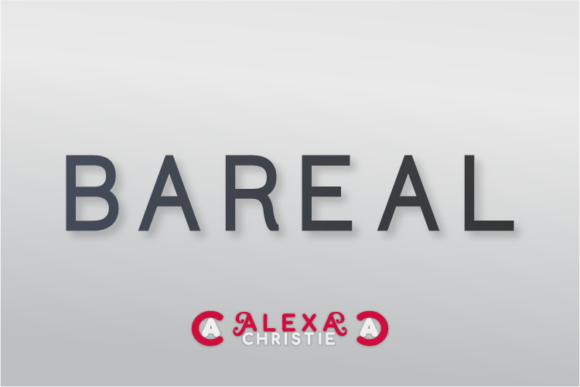
Unlock the Potential of Your Designs with Bareal Font
Have you ever stared at a blank canvas, trying to bring your creative vision to life, but struggling to find the perfect font to set the tone? We’ve all been there. The right font can elevate your design from bland to grand, and that’s where Bareal Font comes in. This modern and classy sans serif font is designed to make your creative ideas shine.
Bareal Font is more than just a pretty face – it’s a versatile tool that can be tailored to fit a wide range of projects, from sleek corporate websites to stylish print materials. For designers, Bareal Font offers a valuable asset that can help take their designs to the next level. With its clean lines and sophisticated feel, Bareal Font is sure to make a lasting impression.
Bareal Font Key Features
- Font Family: Bareal Font offers a range of font styles, including regular, italic, bold, and bold italic.
- Unique Characteristics: The font features a unique blend of modern and minimalist design elements, making it perfect for creating a clean and sophisticated visual identity.
Bareal Font Review
After diving into the Bareal Font, I have to say it’s a mixed bag. Here are my thoughts on what works well and what doesn’t.
- Unique Character**: The Bareal Font has a distinct, modern feel that’s perfect for adding some personality to your designs.
- Legibility**: The font is surprisingly readable, even at smaller sizes, which is a must for digital applications.
- Wide Character Set**: The font comes with a comprehensive character set, making it suitable for a wide range of languages and use cases.
- Limited Expressiveness**: While the font has a unique feel, it may not be expressive enough for certain design applications, such as titles or headings.
- Not Ideal for Body Text**: The font may not be the best choice for large blocks of body text due to its condensed spacing.
- No Gradient or Outline Options**: The font is a solid, flat design, which may limit its versatility in certain design scenarios.
The Bareal Font is a solid choice for designers looking for a modern, legible font. While it has some limitations, its unique character and wide character set make it a great addition to any design toolkit. With some careful consideration of its limitations, the Bareal Font can be a great asset for designers seeking a fresh, modern look.
Bareal Font Practical Application Guide
The Bareal font is a versatile and modern sans-serif font that can be used in a variety of applications. To use it in your design projects, follow these steps:
Some common use cases for the Bareal font include:
1. Headings and titles in digital products and marketing materials.
2. Body text in blogs, articles, and social media posts.
3. Branding and logos in the tech and finance industries.
Some tips for getting the most out of the Bareal font include:
1. Pair it with a bold sans-serif font for contrast